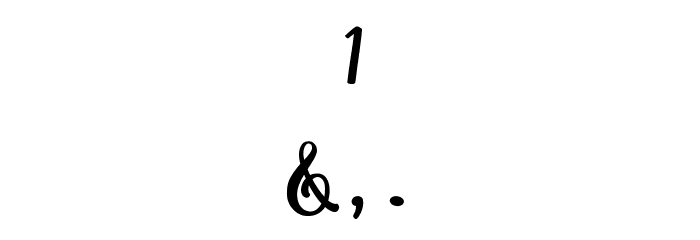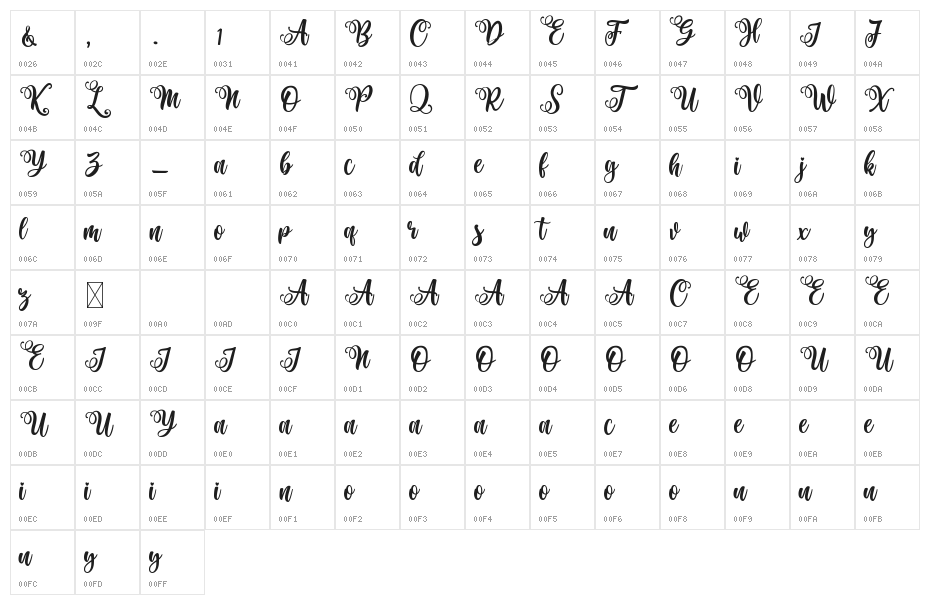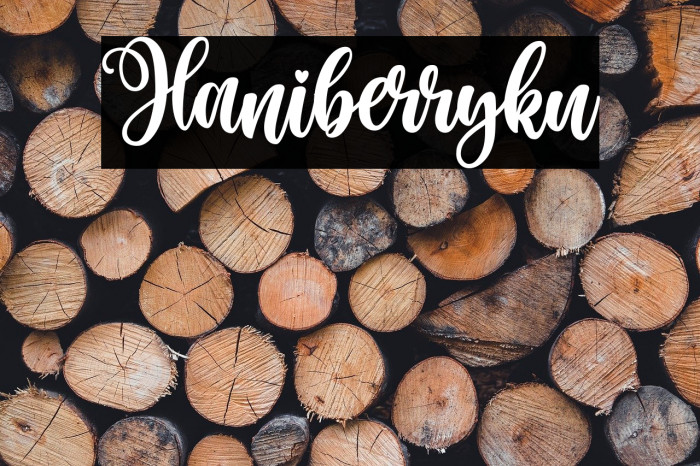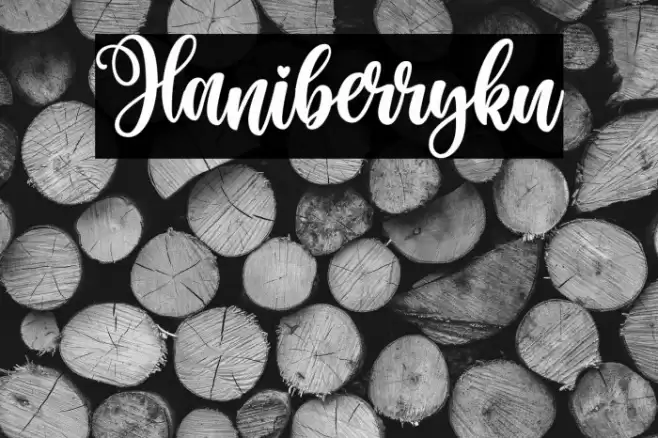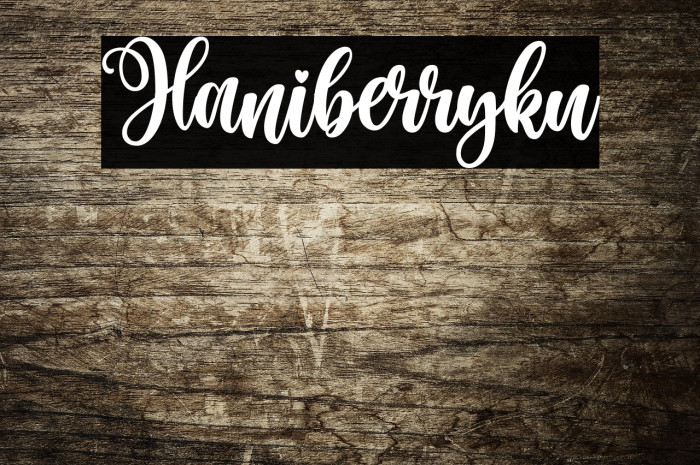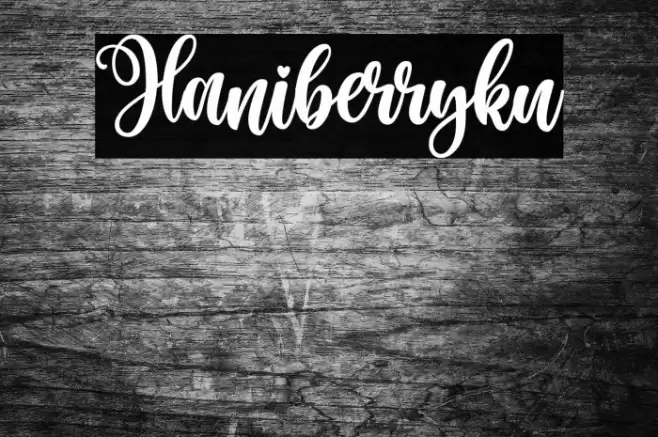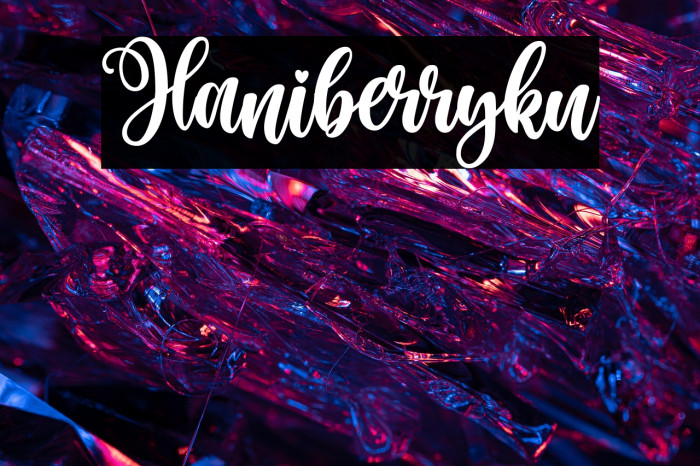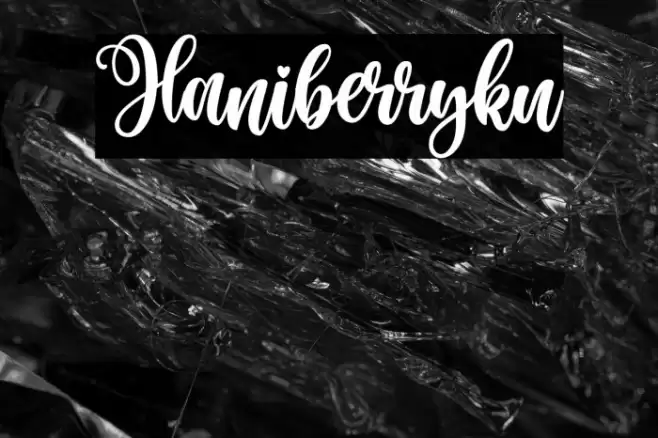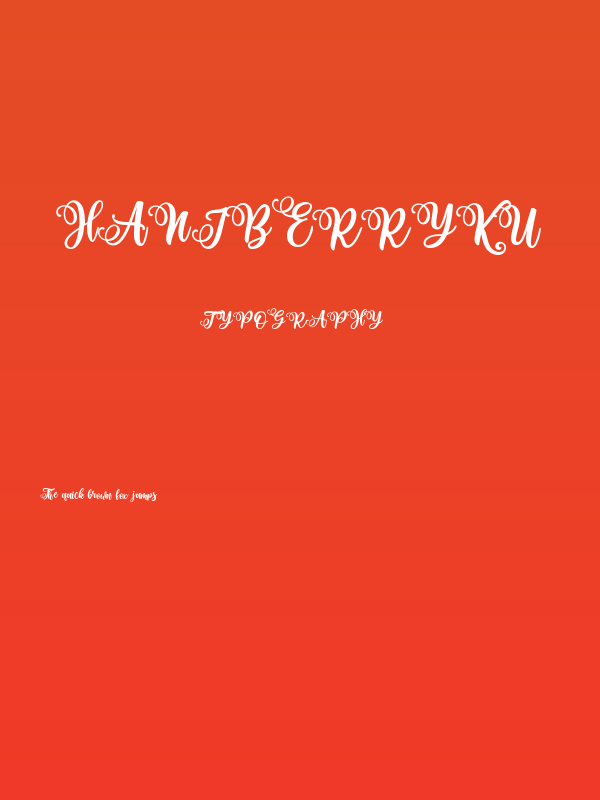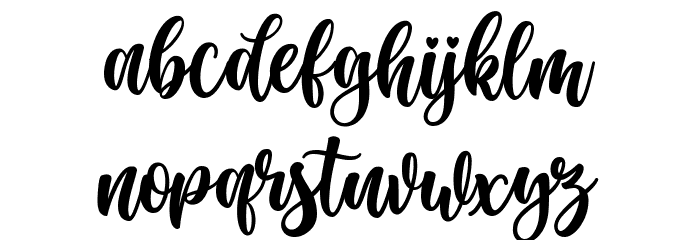
Haniberryku Font
Haniberryku Description
This font features an elegant and flowing script style, characterized by its ornate swirls and loops that give it a sophisticated and decorative appearance. The uppercase letters are particularly elaborate, with intricate curls that add a touch of whimsy and charm. The lowercase letters maintain a consistent flow, enhancing readability while retaining the decorative flair. The font's design is well-suited for creative and artistic projects, offering a sense of elegance and personality. Its unique style makes it ideal for use in invitations, greeting cards, and branding materials where a touch of elegance is desired.
| Proposed Projects | Ideal for wedding invitations, greeting cards, branding, and artistic projects. |